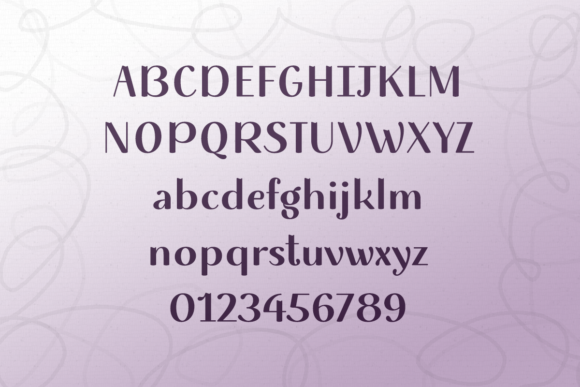
Introduction to My Empire Won’t Fall Font
My Empire Won’t Fall is a stylish bold sans serif font, carefully handcrafted to become a true favorite.
This font will look outstanding in any context, whether it’s being used on busy backgrounds or as a standalone headline .
Key Features of My Empire Won’t Fall Font